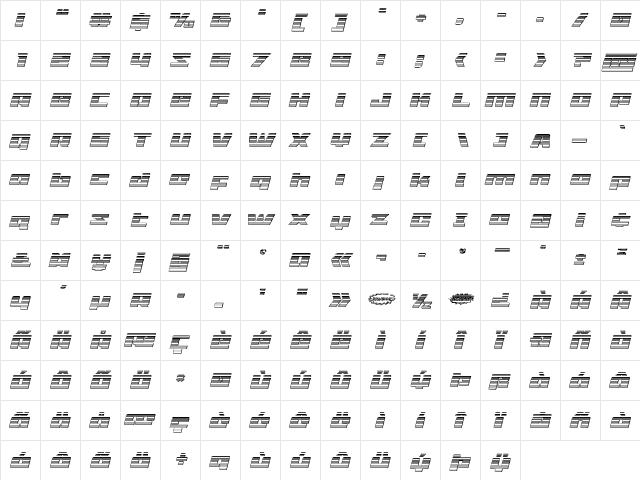
Turbo Charge Chrome Italic Italic
Design Context for Turbo Charge Chrome Italic Typeface
Turbo Charge Chrome Italic is a composed and adaptable typeface that performs quietly and consistently across a wide range of design contexts. The dynamic lean of this cut emphasises speed and emphasis in any layout.